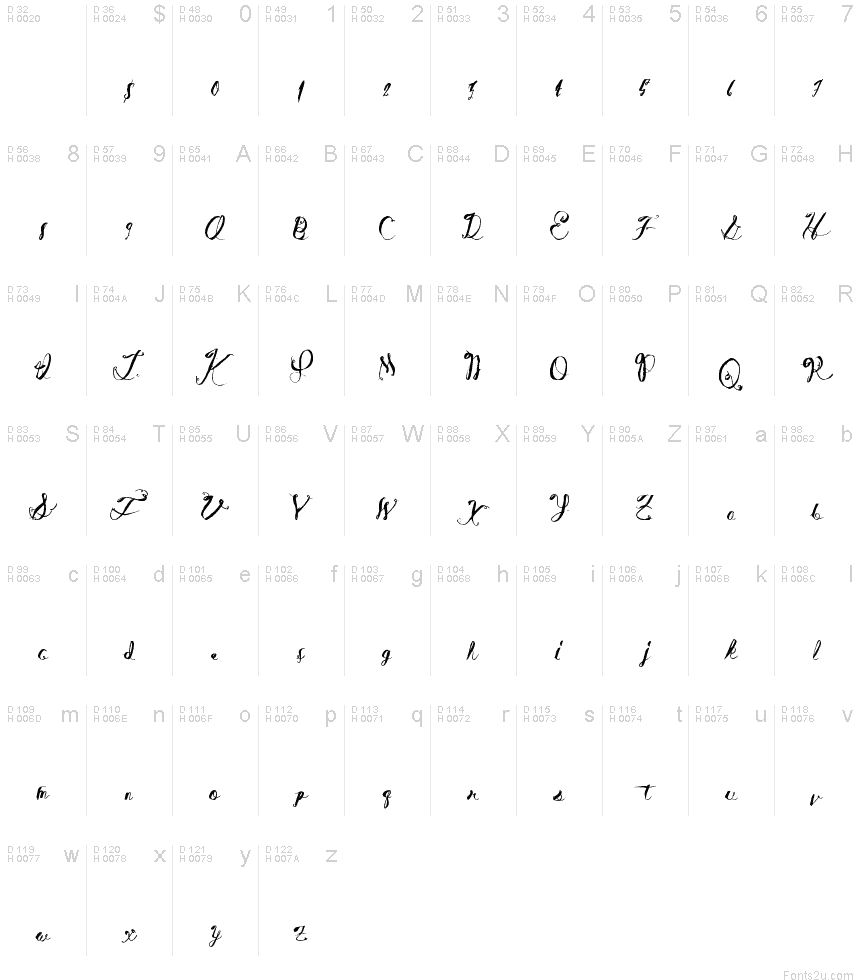
Wine Basement from Xerographer Fonts is a free calligraphic script with exuberant loops and dramatic changes in stroke weight. Its letters sweep far beyond their main shapes, with oversized curls and tangled joins that suggest ornamental penwork rather than formal copperplate. The uneven movement gives each word a lively, improvised, and unmistakably ornamental silhouette.
Packaging is its strongest medium, especially wine labels and gourmet gift boxes. Cellar branding, restaurant menus, and event invitations also suit adults who enjoy theatrical lettering with an improvised, decorative edge.